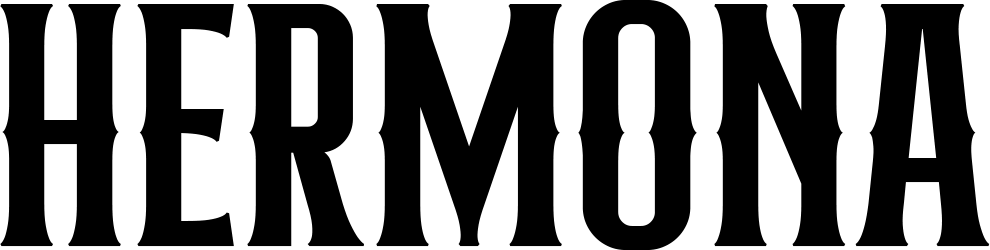
Hermona Font
Hermona is a biker font that does not support lowercase letters, the interesting point about this font is that a line has been added to the middle of all its characters, which makes the font look different and eye-catchi…
Hermona is a biker font that does not support lowercase letters, the interesting point about this font is that a line has been added to the middle of all its characters, which makes the font look different and eye-catching. It can convey a sense of innovation and professionalism to the audience, so it is suitable for designing book covers and printing on clothes.